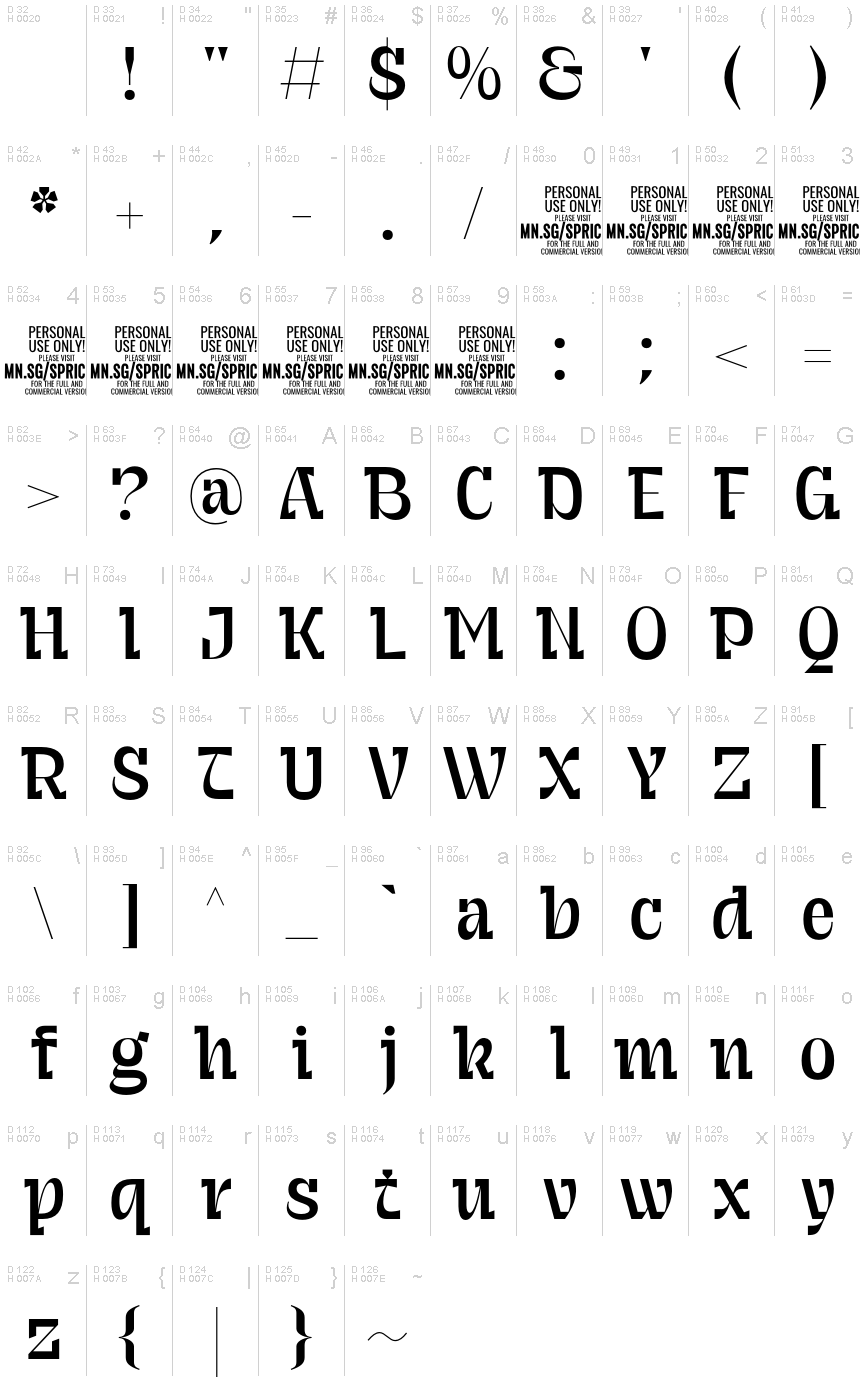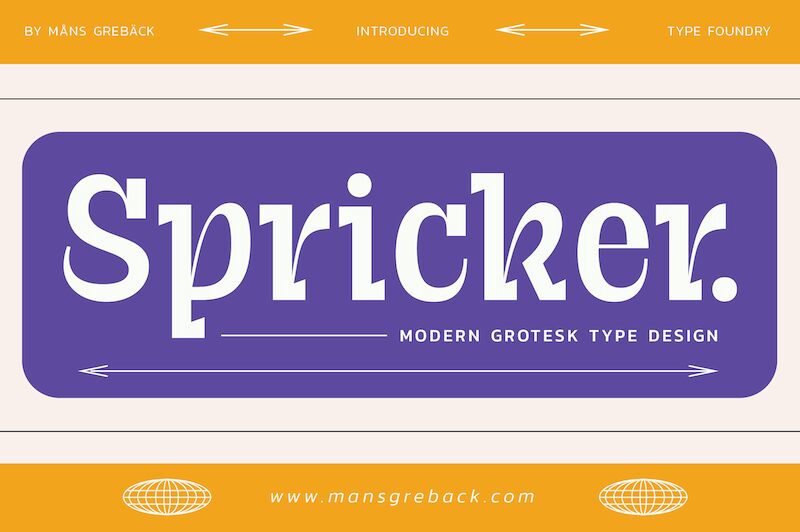
Spricker PERSONAL USE Regular
Spricker is a creation by Mans Greback that embodies a modern aesthetic with typographic finesse. The font's design, characterized by its prominent slab serifs, presents an exquisite contrast between its bold structures and the finesse of its slender lines. This harmonious interplay grants Spricker a distinct presence that is both assertive and refined.
The style of Spricker suggests versatility for various applications—it could serve as a commanding headline in editorial designs, bring sophistication to branding, or add character to packaging. Its balance of strength and subtlety makes it particularly suitable for projects that require a font with personality without compromising on readability and elegance.